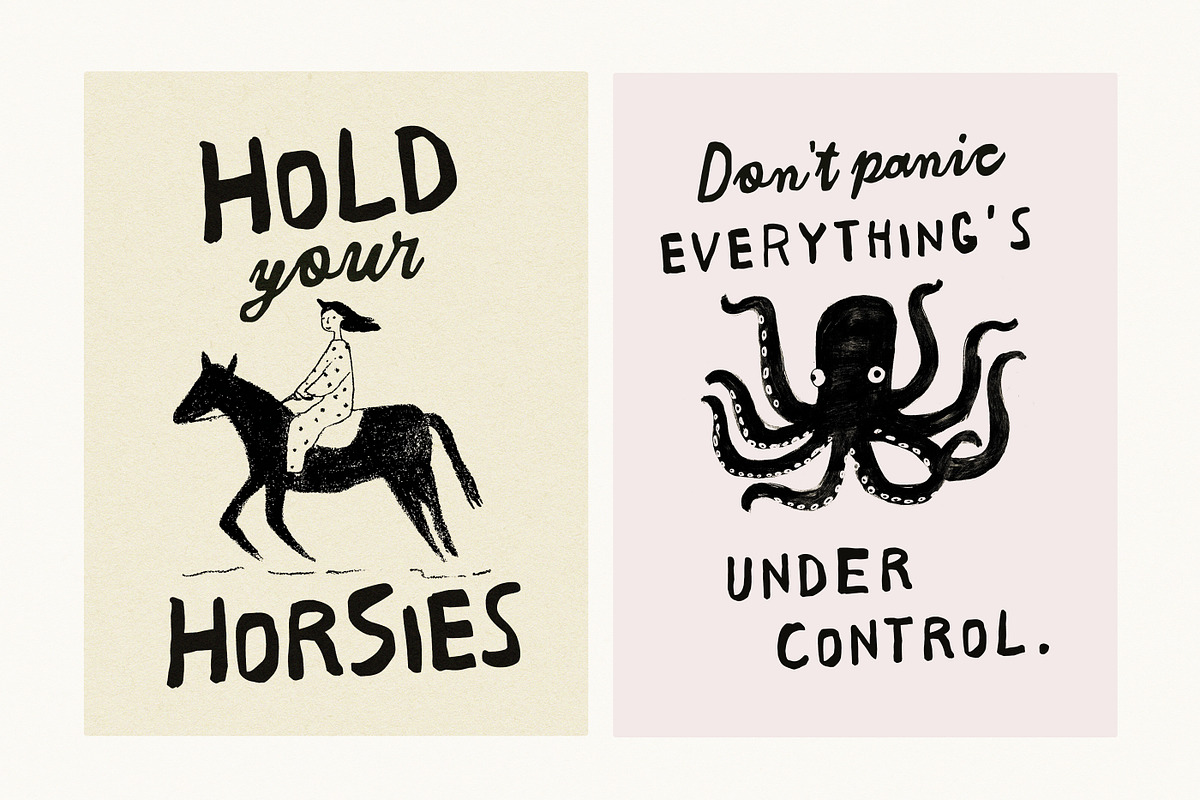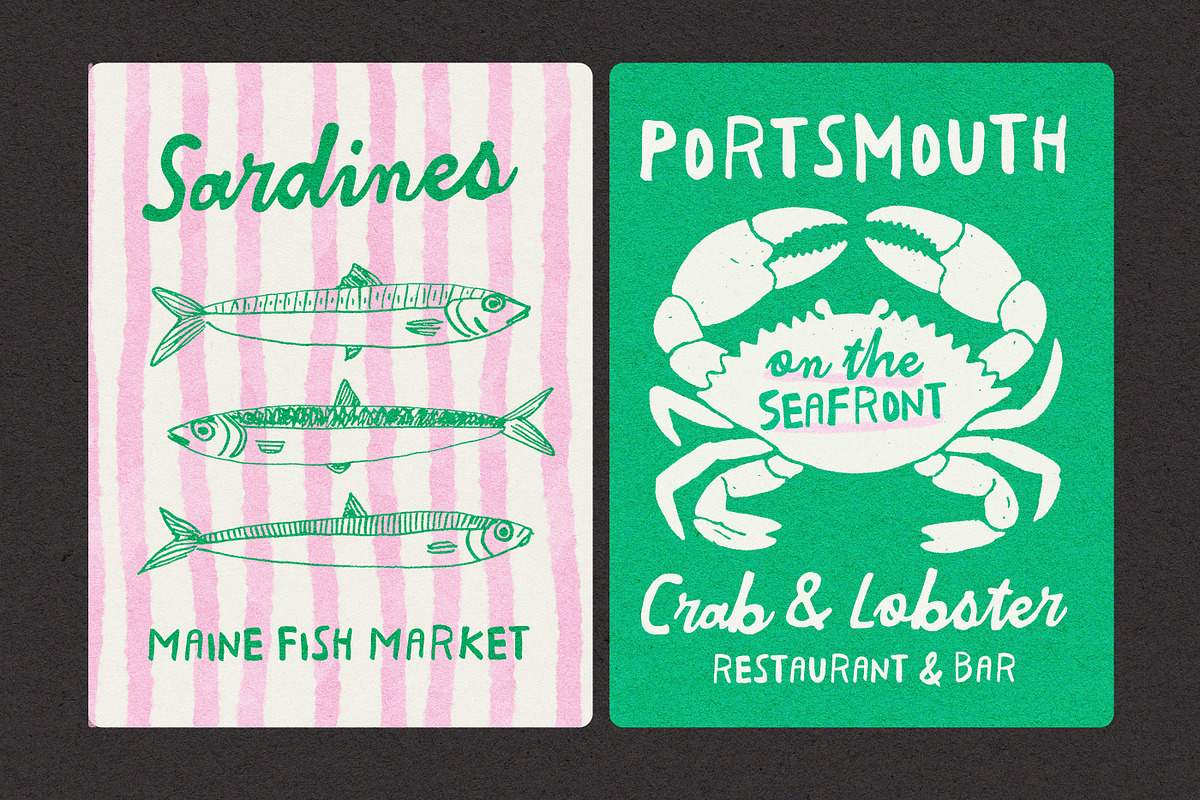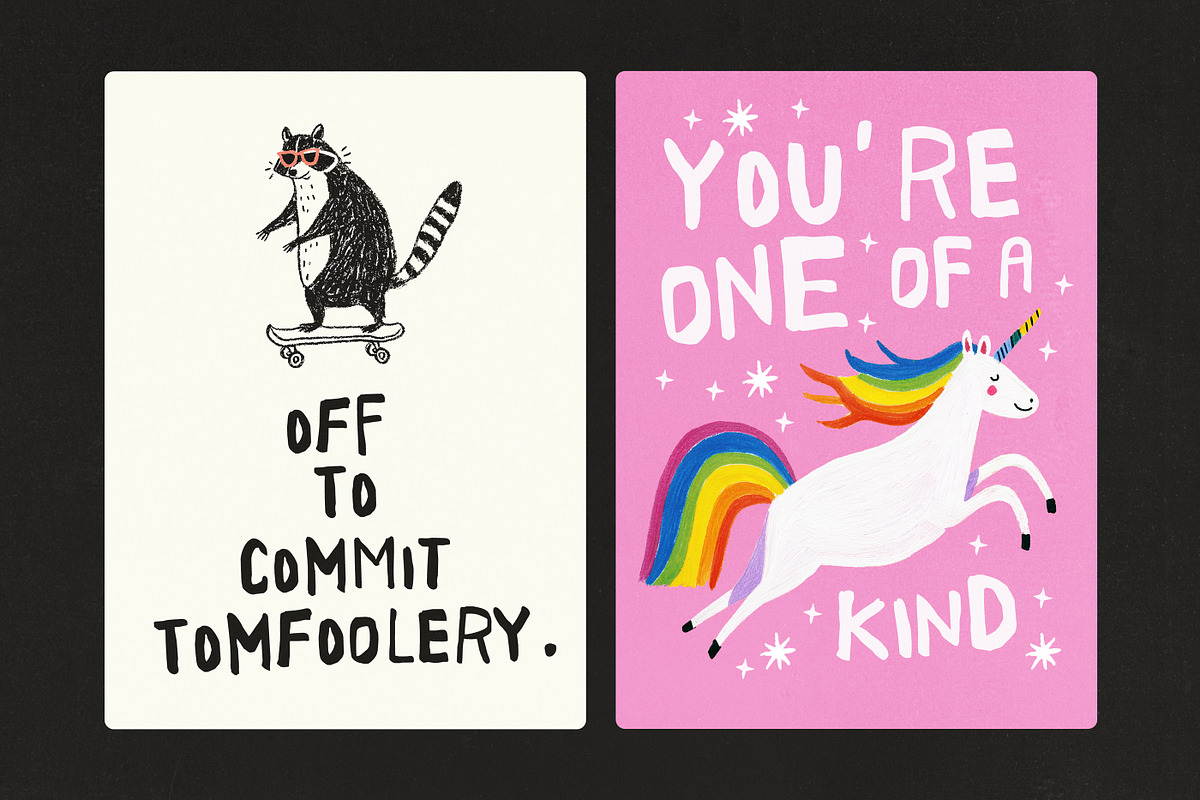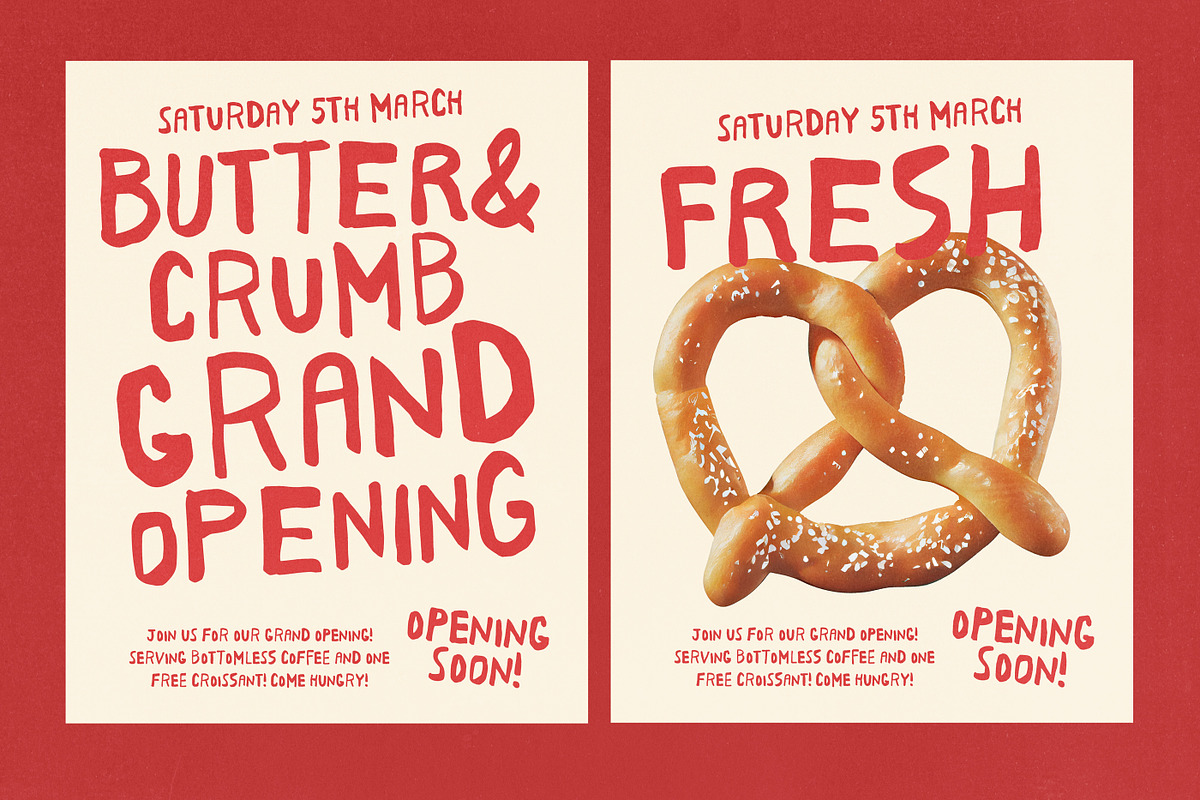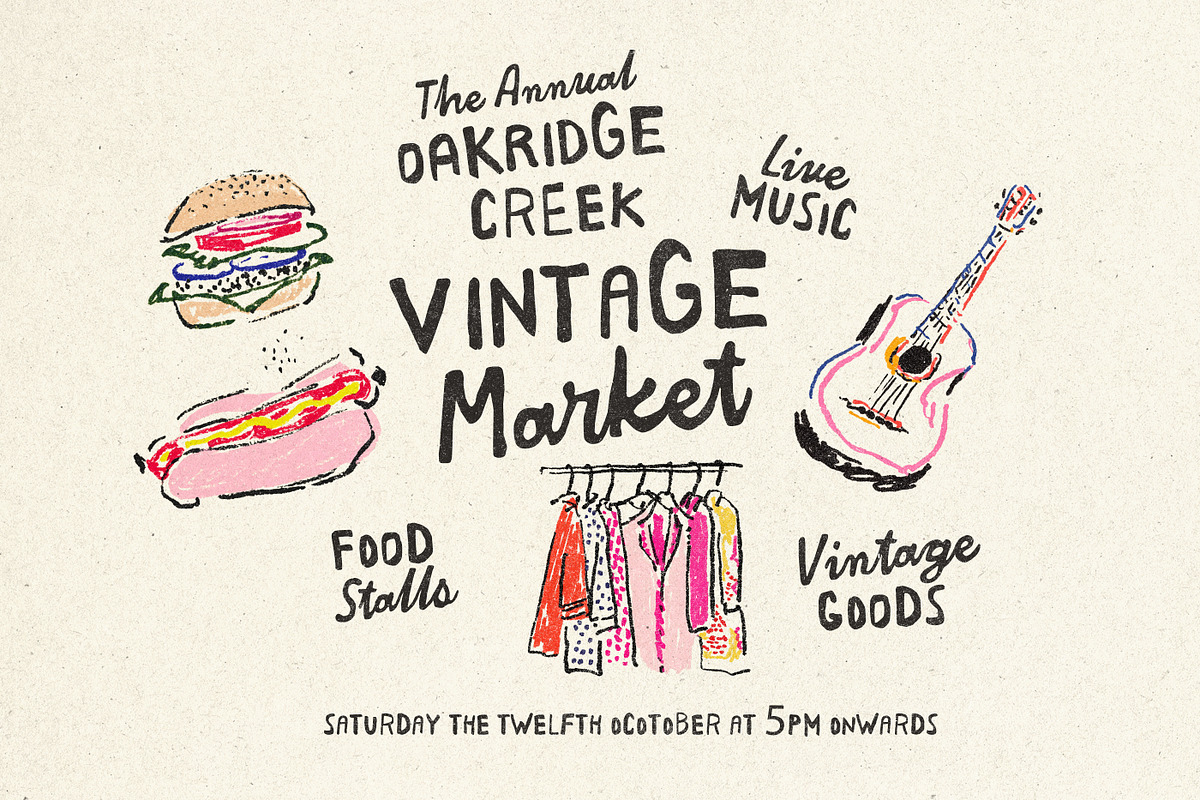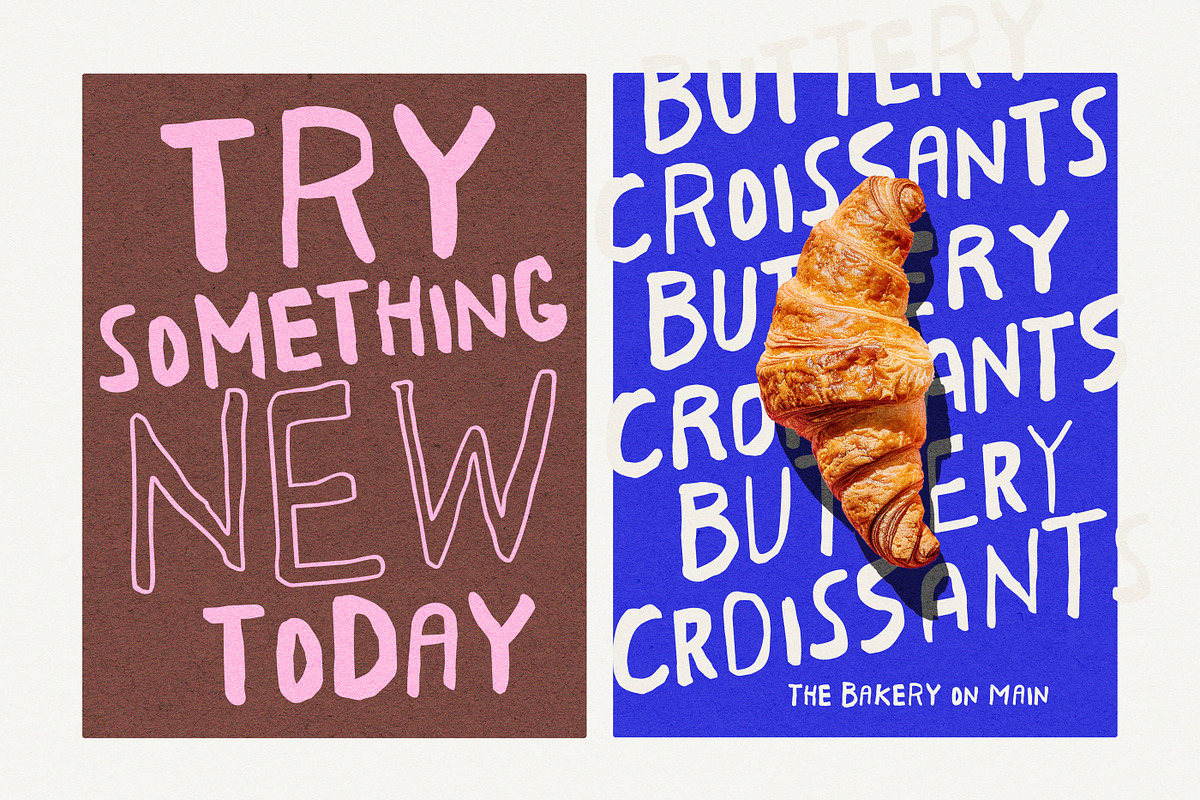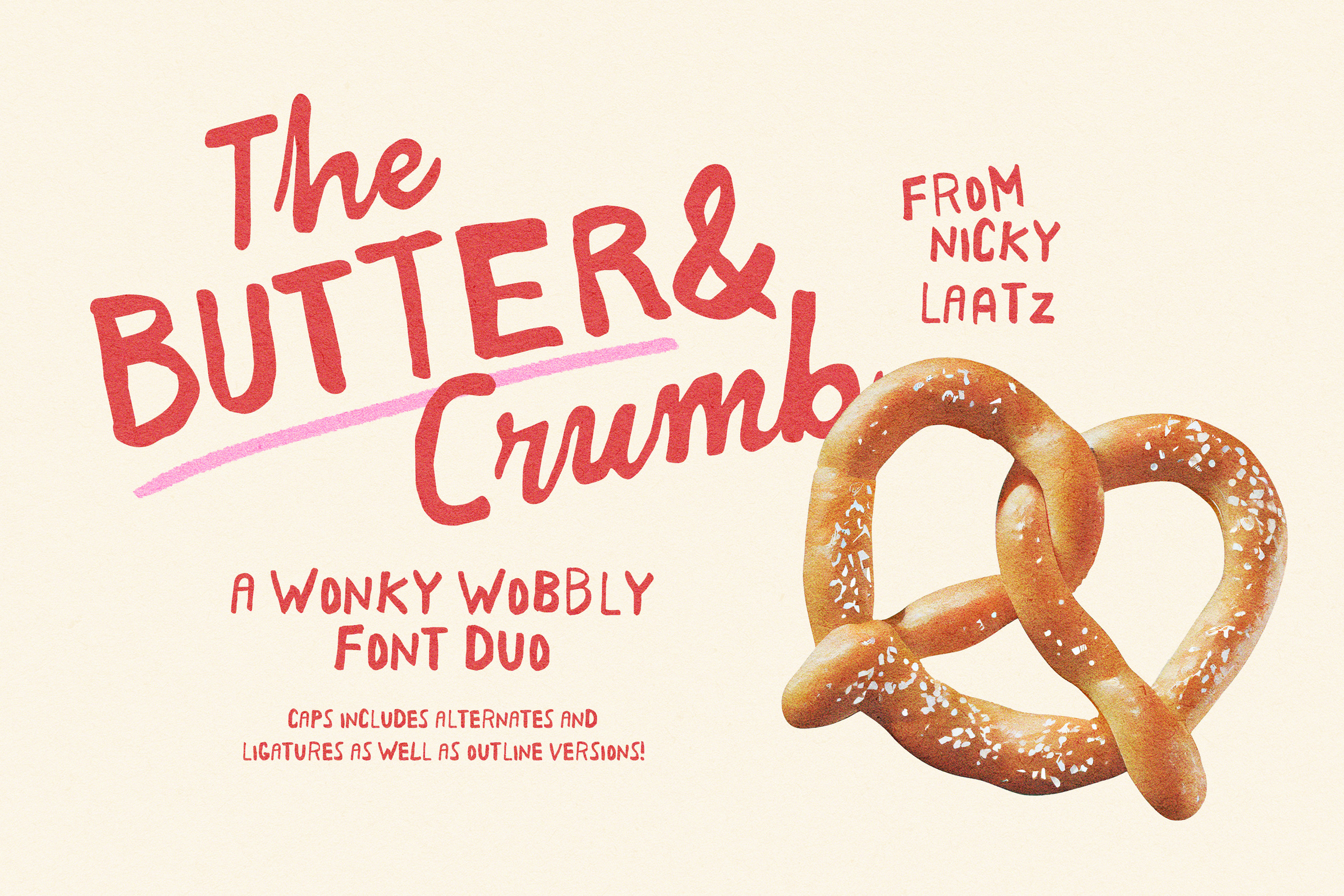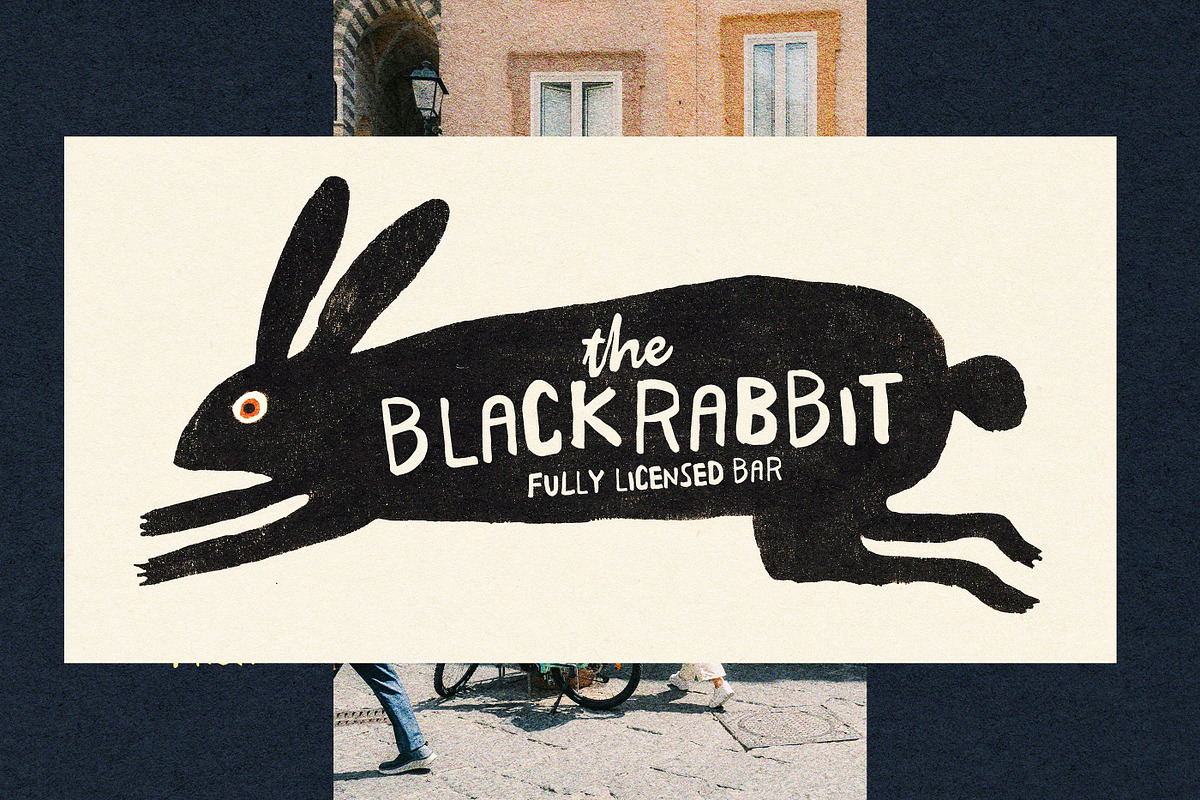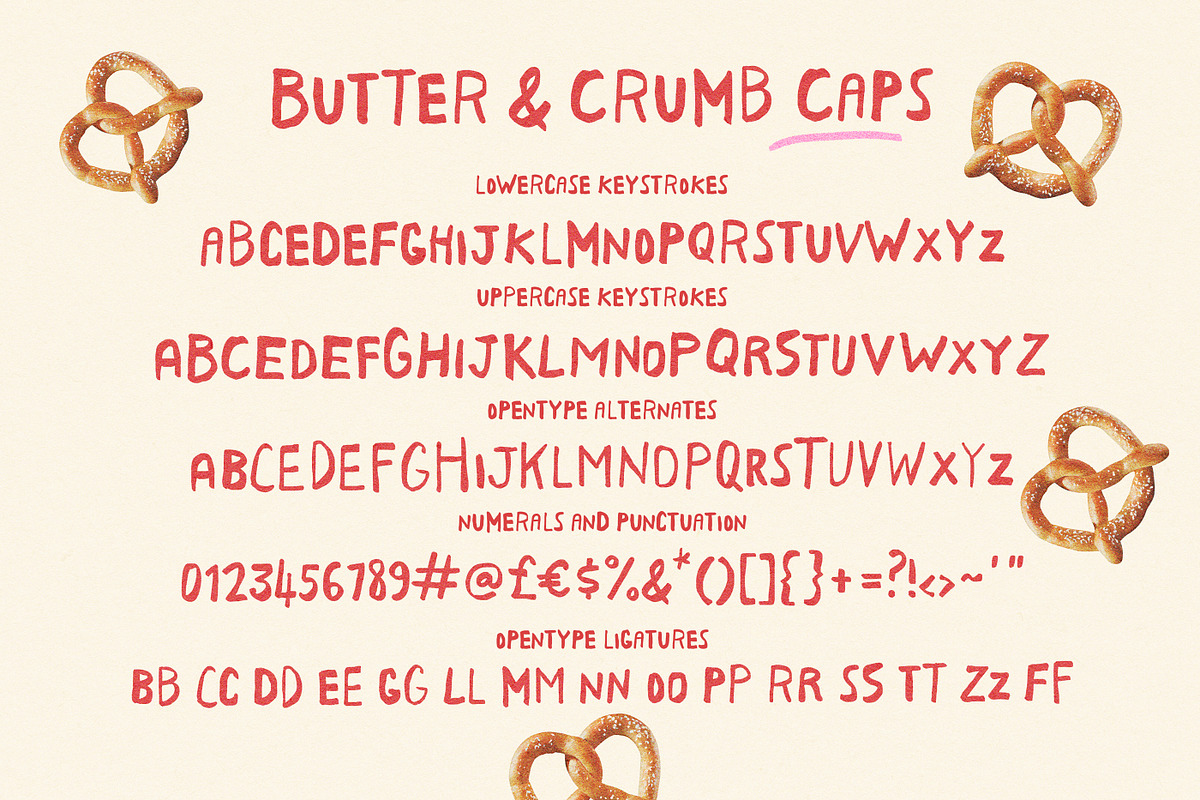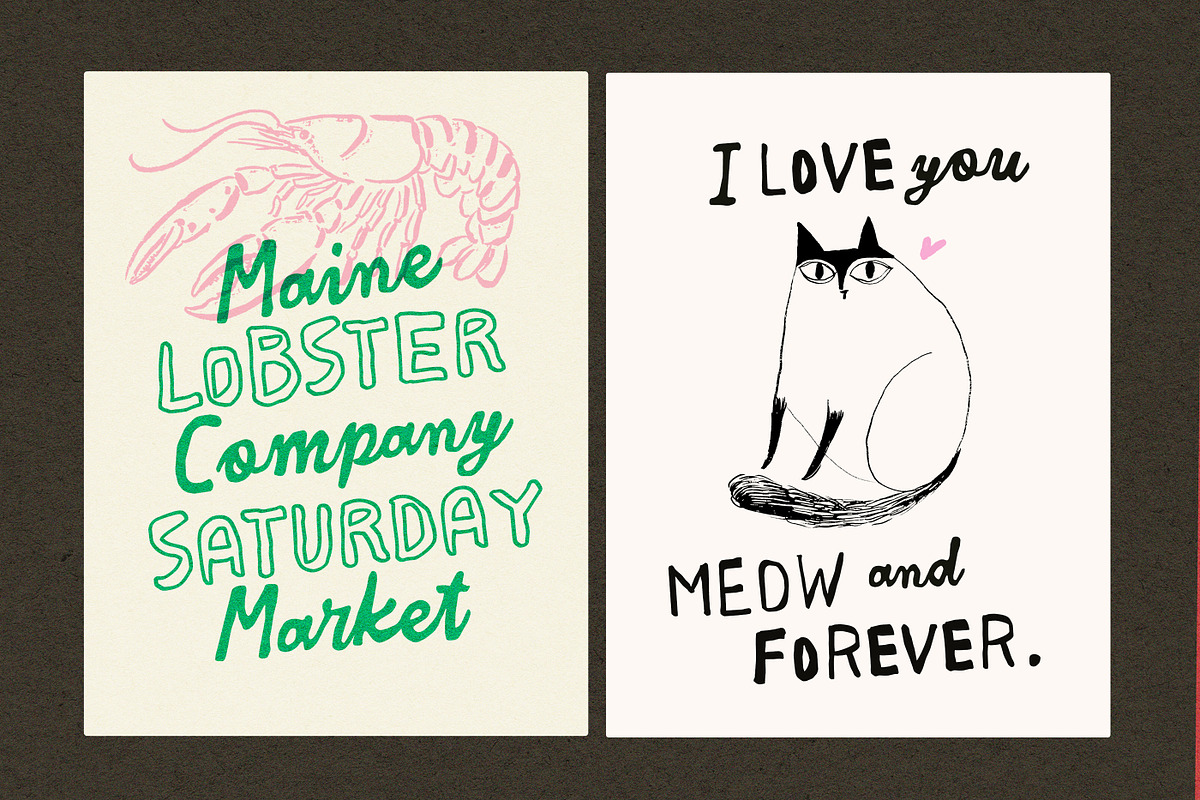
Butter And Crumb Font Duo
Say hello to the new boldly imperfect font duo : Butter & Crumb! A duo that knows how to misbehave, but in a good way :)
Full of expressive fun, the duo combines a cheeky wobbly caps, and a fat chunky script to match.
Butter & Crumb comes packed with alternates, ligatures, and outline versions—little creative extras that let you push things further without losing that signature charm.
Whether you’re designing bold poster prints, cheeky greetings, rebellious branding and social posts, or just craving a typeface with personality, Butter & Crumbs delivers a look that’s equal parts cozy and cool.
It’s not perfect—and that’s exactly why you’ll keep reaching for it. ENJOY!!